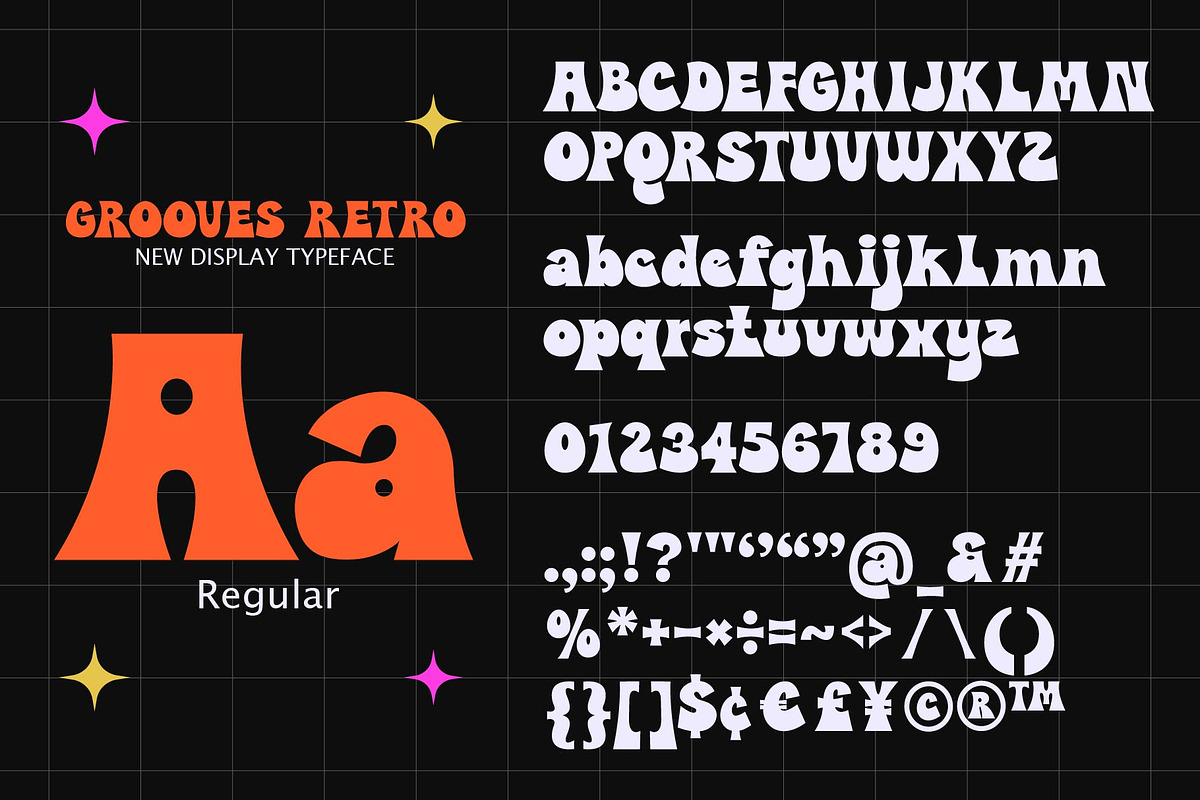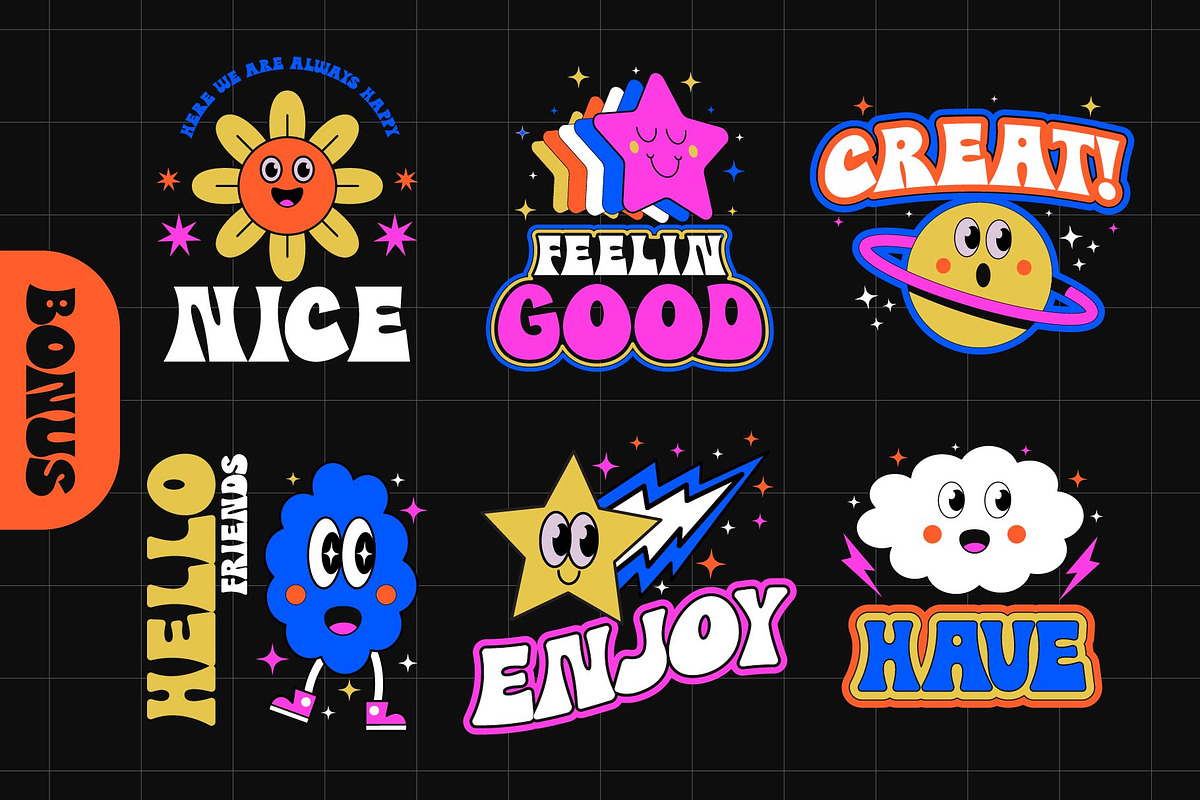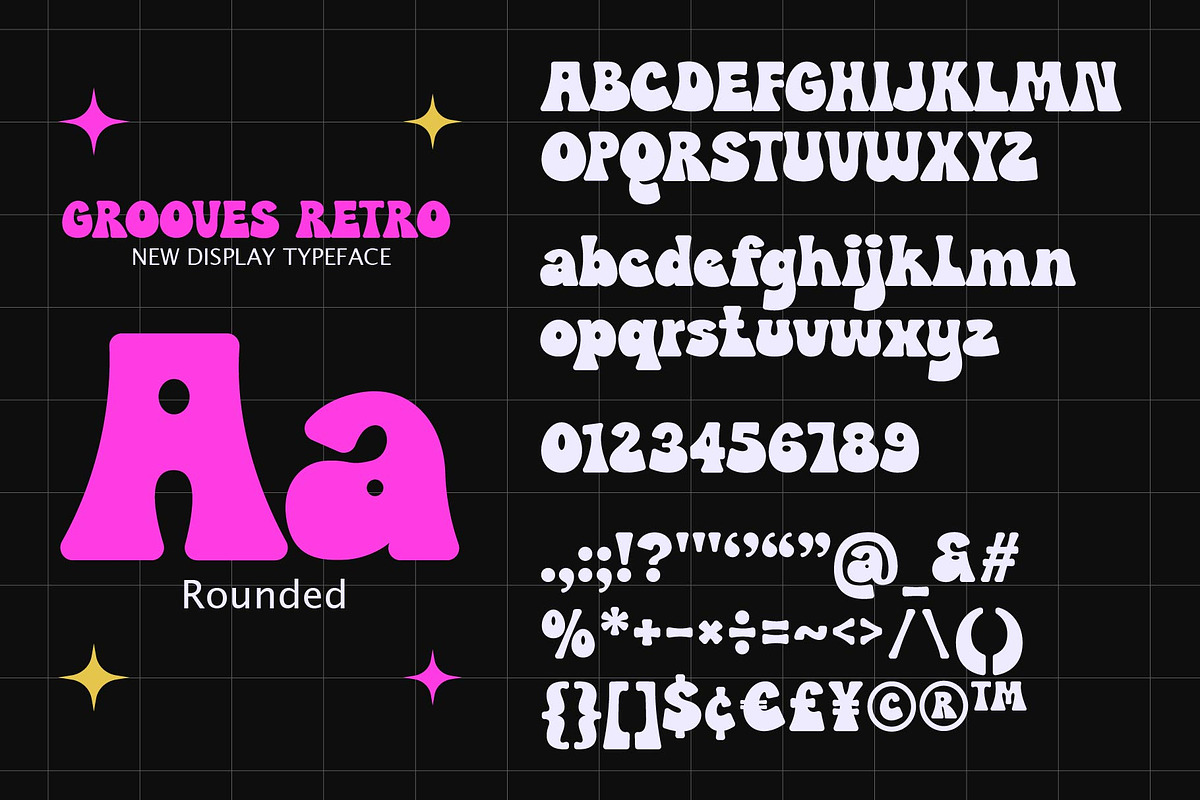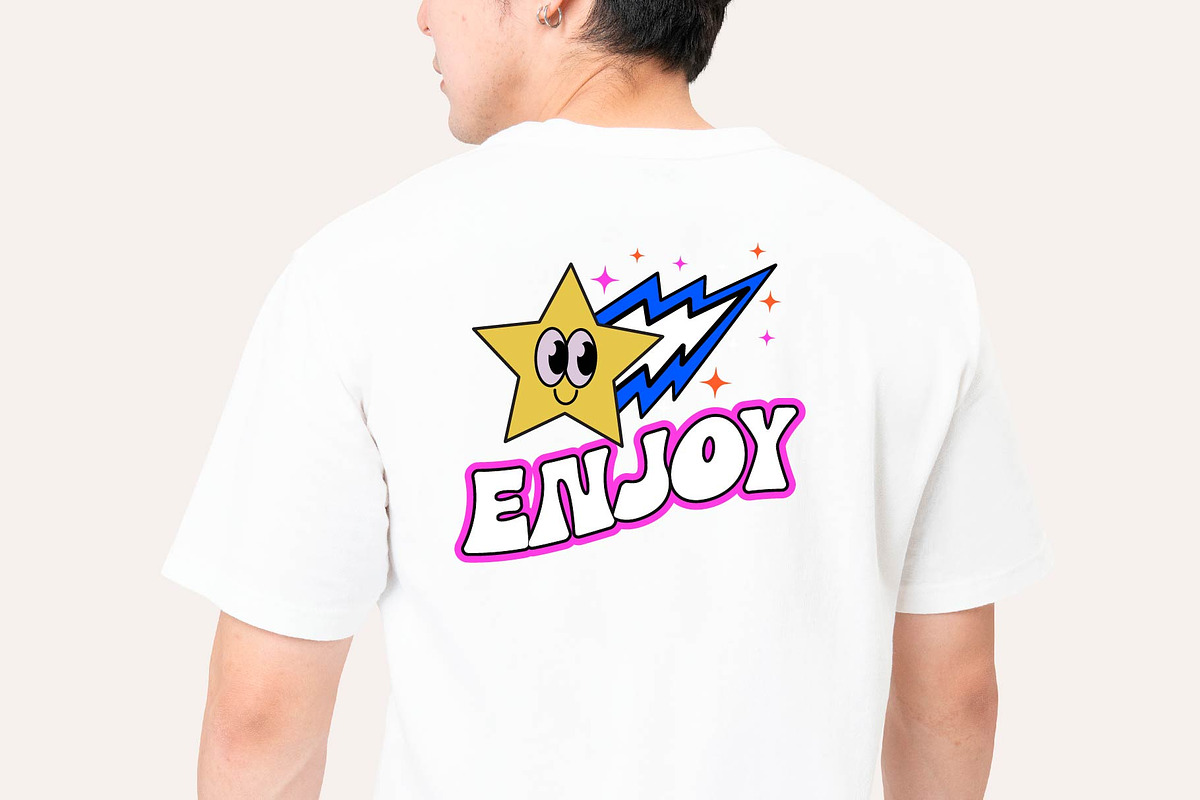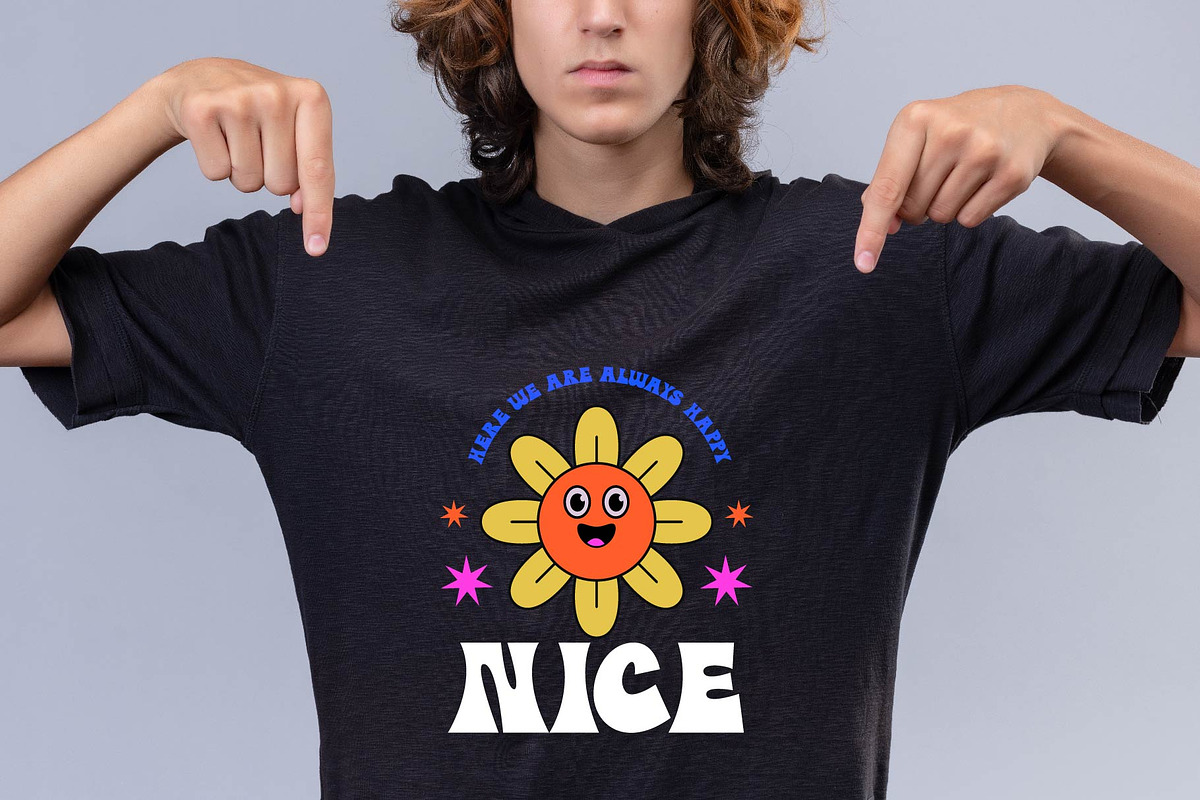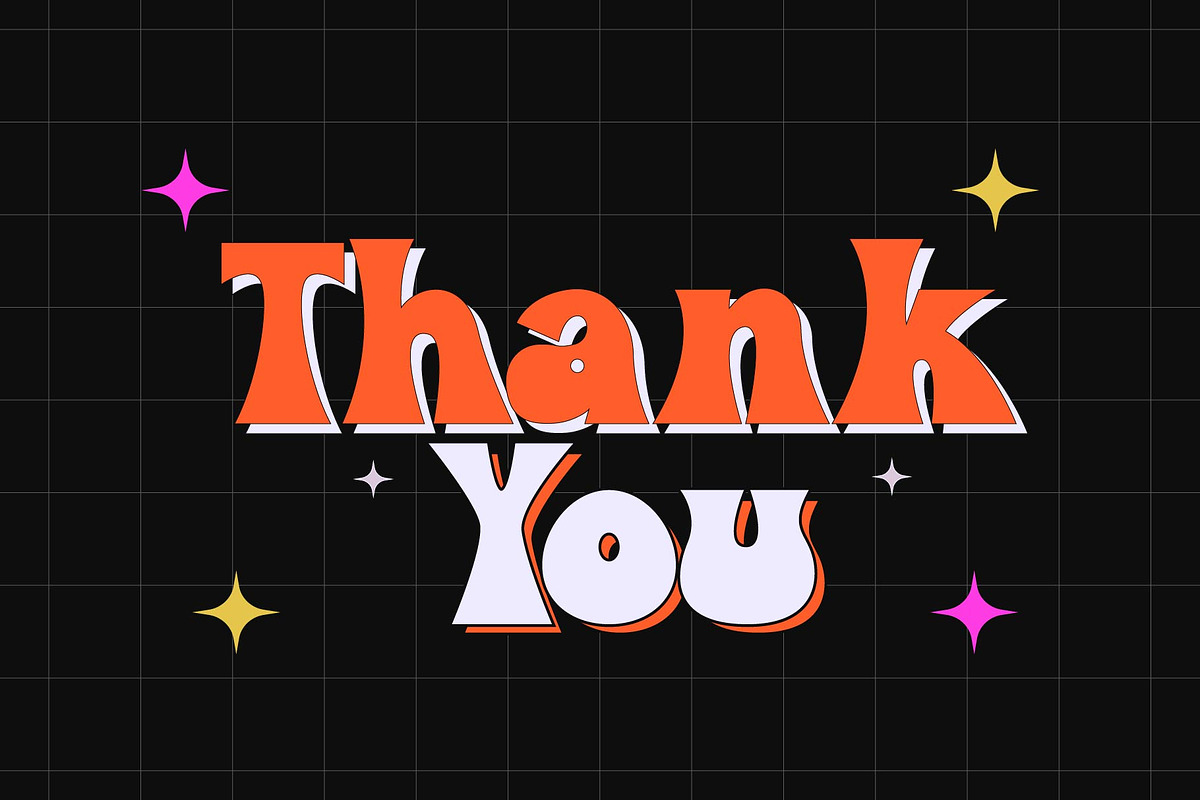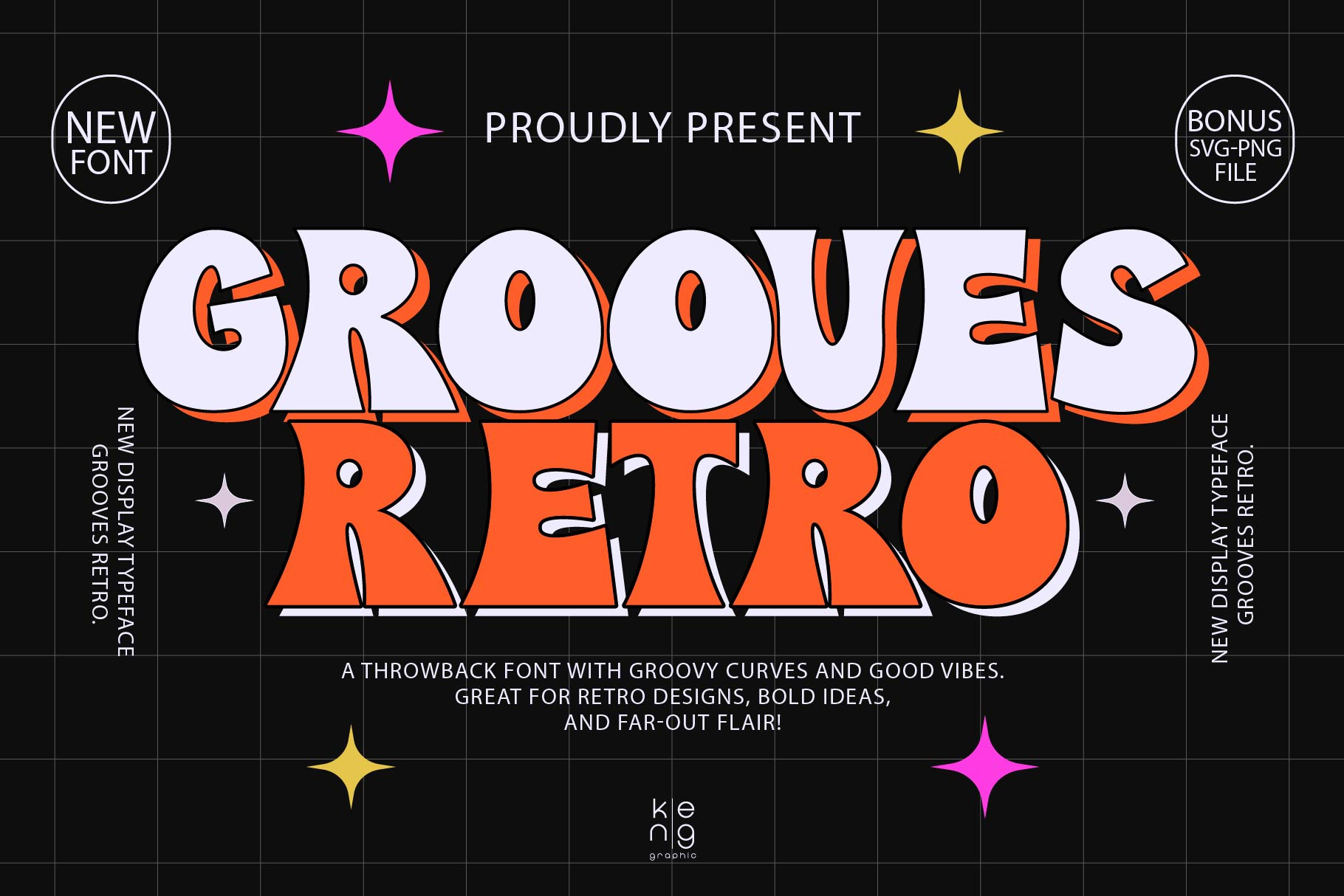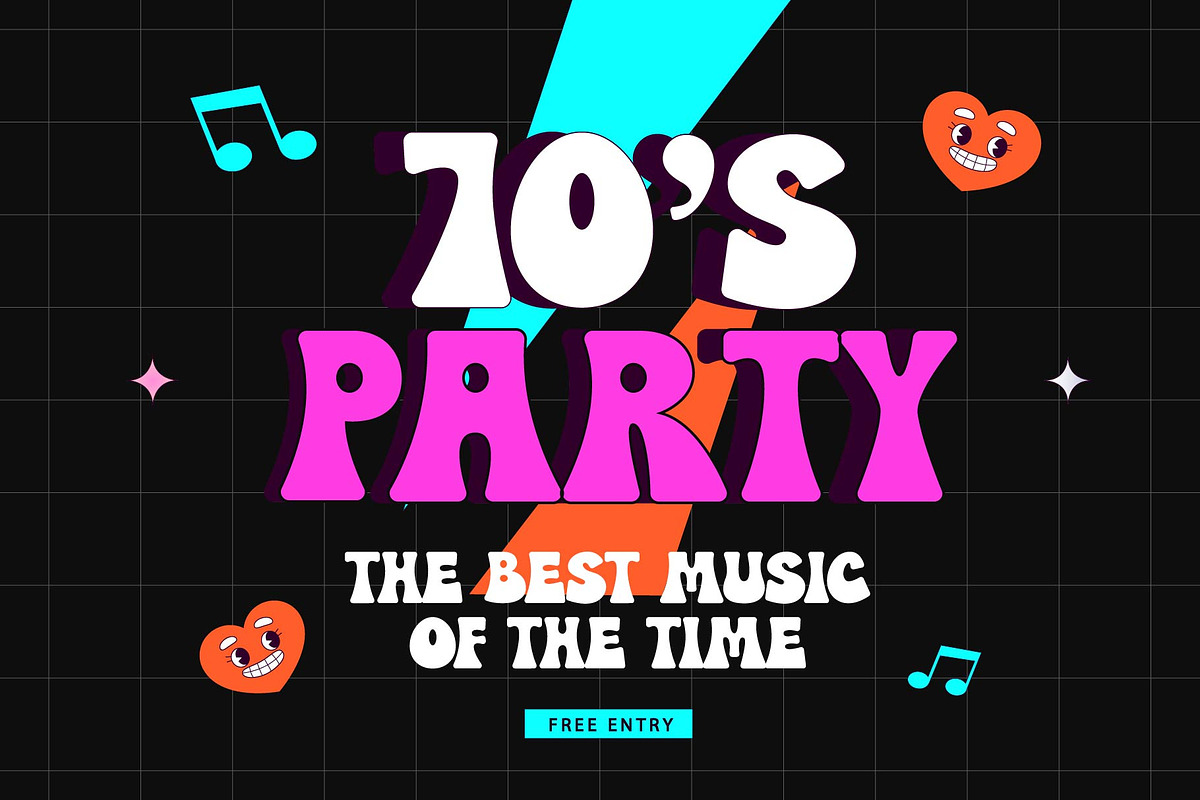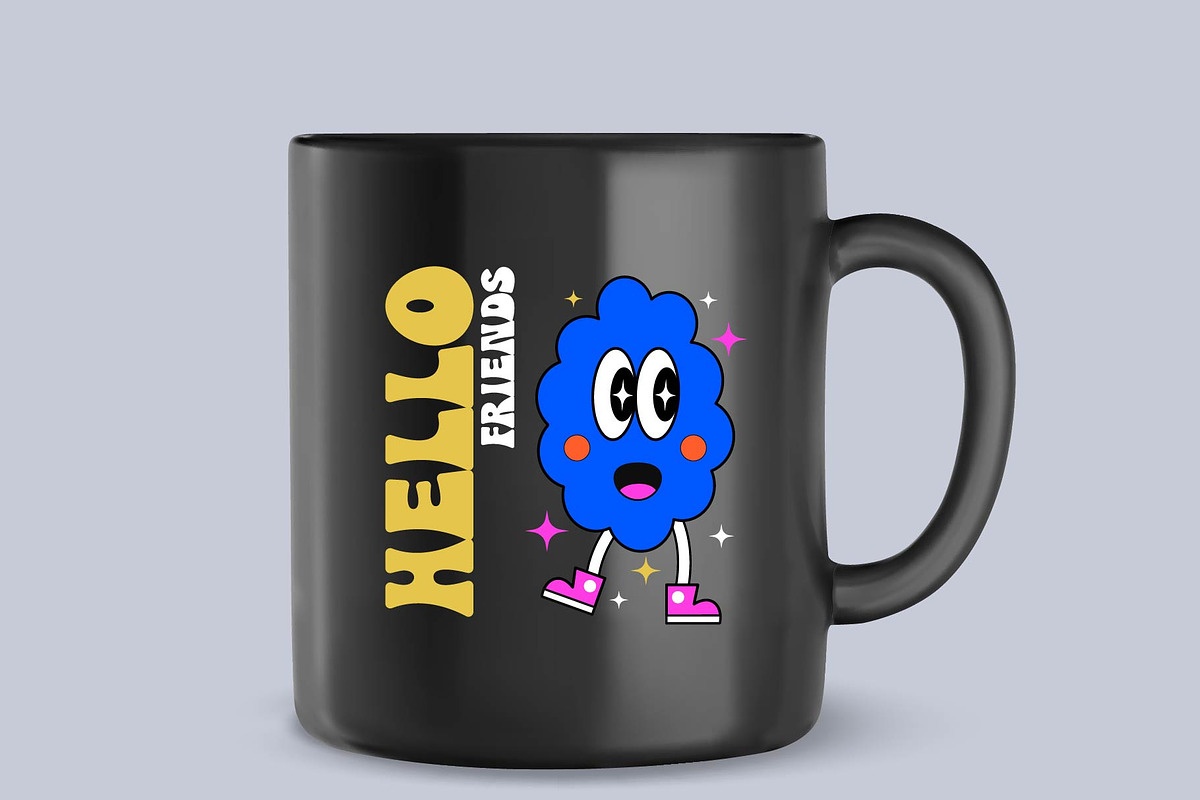
GROOVES RETRO FONT
Grooves Retro is a bold and playful display font inspired by the vibrant spirit of the ’70s. With its curvy, groovy lines and retro flair, this typeface is perfect for vintage designs, music posters, party invites, and branding. It’s also a great choice for product customization—perfect for tote bags, mugs, t-shirts, and other merchandise. Included with bonus SVG and PNG files, Grooves Retro brings good vibes and bold attitude to every project.